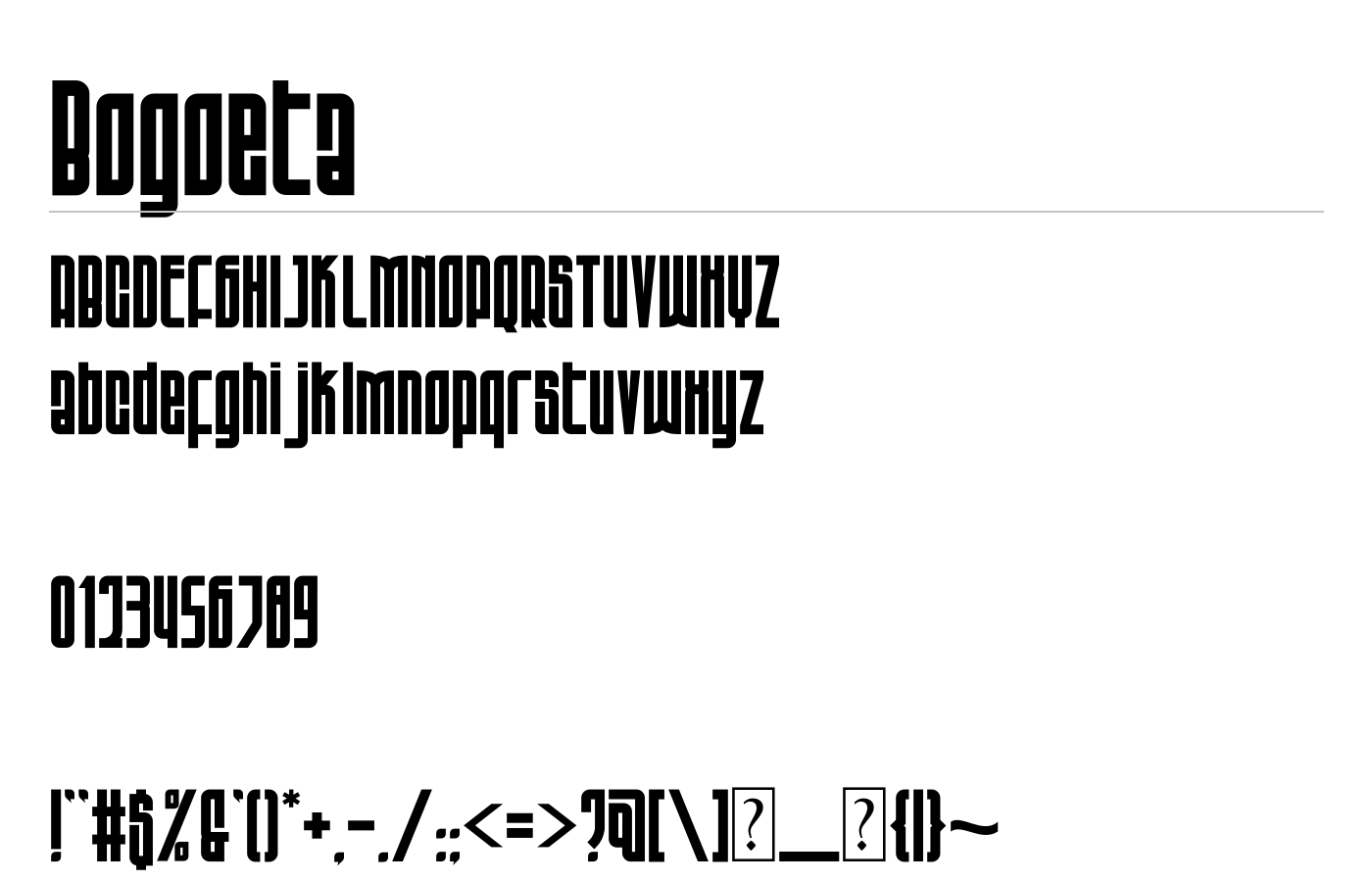
Bogoeta is a bold, condensed sans serif font with a strong vertical emphasis and minimal stroke contrast, giving it a modern, industrial feel. Its tall, narrow letterforms with unique angular details convey a sense of strength and sophistication, making it ideal for striking headlines, logos, and branding that demand attention. This font works best in display settings where impact and a contemporary edge are desired.
Bogoeta Font
About Bogoeta Font
| Font family | Bogoeta Font |
| Designer | Badrul Munir |